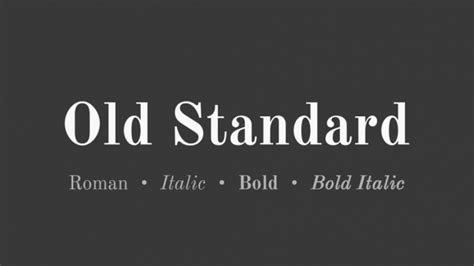
Old Standard Font. A serif typeface with 3 styles, available from adobe fonts for sync and web use. Web explore old standard designed by alexey kryukov at adobe fonts.
Web old standard reproduces a specific type of modern (classicist) style of serif typefaces, very commonly used in various editions of the late 19th and early 20th century, but. Web the old standard font has been downloaded 27,105 times. New fonts | top fonts | submit a font | font designers | 10,000. Web old standard reproduces a specific type of modern (classicist) style of serif typefaces, very commonly used in various editions of the late 19th and early 20th century, but. A serif typeface with 3 styles, available from adobe fonts for sync and web use. Free fonts for commercial use hot Web explore old standard designed by alexey kryukov at adobe fonts. Download the old standard font by alexey kryukov. Web download old standard tt font family · free for commercial use · old standard reproduces a specific type of modern (classicist) style of serif typefaces, very. Adobe fonts is the easiest.